Remember when tiny black marks on paper delivered the world’s most important stories? Those marks were newspaper fonts – and they represent some of the most brilliant problem-solving in typography history, even as physical newspapers fade into memory.
Think about it: these typefaces needed to whisper “credible journalism” while shouting “read me first!” They had to squeeze maximum information into minimal space, remain crystal clear at microscopic sizes, and work flawlessly whether printed on high-end presses or basement operations. It was typographic genius disguised as everyday utility – back when “everyday” meant something entirely different.
From the iconic Times New Roman that graced countless front pages to the final gasps of print journalism, newspaper fonts carry the DNA of a publishing era that’s largely passed us by. As someone who’s dissected everything from vintage broadsheet headers to forgotten classified ad text, I’m fascinated by how these information workhorses achieved the impossible balance of efficiency and elegance. Ready to explore the fonts that once literally made headlines? Let’s uncover the typographic legacy of an analog world!
28 Newsworthy Newspaper Fonts of 2026
Typrighter
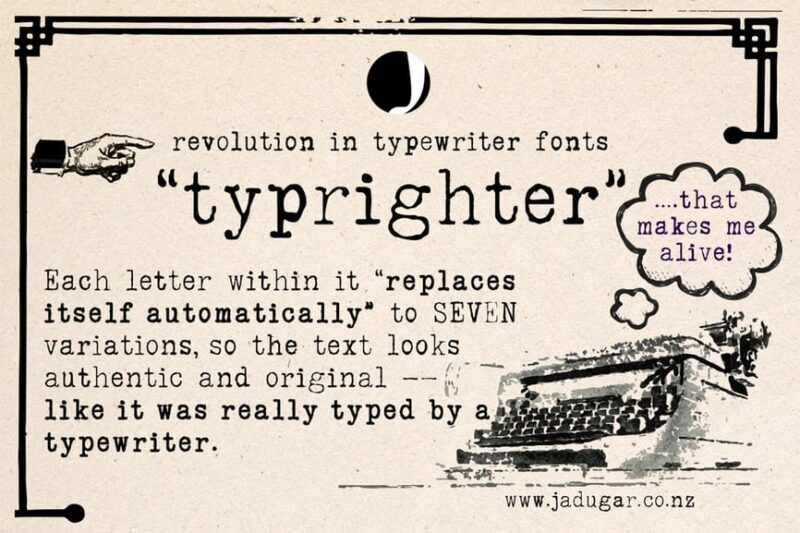
Typrighter is a serif typeface that emulates the look of old typewriter text. It offers a nostalgic and authentic feel, perfect for projects requiring a vintage or retro aesthetic.
Analog Typewriter
Analog Typewriter is a serif font that mimics the imperfections of typewritten documents. It’s ideal for creating realistic, vintage-inspired designs or adding a touch of authenticity to digital projects.
Not my type typewriter font
This serif typeface captures the essence of a realistic typewriter font. It’s perfect for designers looking to add a genuine, old-school typewritten feel to their work, with all the charm and imperfections of actual typewritten text.
Scripter – Classic Typewriter Font
Scripter is a classic typewriter-inspired serif font. It offers a timeless, traditional look that’s ideal for creating vintage-style designs or adding a touch of nostalgia to modern projects.
Chronicles Secret – Display Typewriter
Chronicles Secret is a decorative serif typewriter font with rounded edges. This unique display font combines vintage charm with a modern twist, making it perfect for eye-catching headlines or branding projects.
Autors Story – Typewriter Font
Autors Story is a serif typewriter font that captures the essence of a writer’s tale. It’s ideal for creating a nostalgic, literary atmosphere in design projects, particularly those related to storytelling or publishing.
Untold History – Typewriter Font
Untold History is a classic typewriter-inspired serif font. It evokes a sense of forgotten stories and hidden narratives, making it perfect for historical or vintage-themed designs.
Amateur Hand – Handwritten Typewriter Font
Amateur Hand is a clean, handwritten-style typewriter font. This serif typeface combines the charm of handwriting with the structure of typewritten text, ideal for designs that require a personal touch with a hint of nostalgia.
Keyclack Font
Keyclack is a retro-inspired serif typewriter font. It captures the essence of old-school typing, complete with the imagined sound of keys clacking, perfect for vintage-themed designs or projects requiring a touch of nostalgia.
Inktype
Inktype is a serif typewriter font that mimics the look of inked text. It offers a unique blend of typewriter precision and the organic quality of ink, ideal for designs that require a handcrafted, vintage feel.
Manuscript – Vintage Typewriter Font
Manuscript is a vintage-style serif typewriter font. It’s particularly well-suited for headlines and retro-inspired designs, offering a classic typewritten look that evokes nostalgia and authenticity.
Rattle Ink — Vintage Typewriter Font
Rattle Ink is a vintage-inspired serif typewriter font. It combines the charm of old typewriters with a slightly distressed look, perfect for creating authentic retro designs or adding a touch of nostalgia to modern projects.
Merchant Ledger
Merchant Ledger is a decorative serif font with a typewriter-inspired design. It evokes the feel of old business ledgers and accounting books, making it ideal for vintage-themed designs or projects related to finance and commerce.
So next time you’re choosing fonts for a serious project, consider the lessons learned from newspaper design. Sometimes the most powerful typography is the kind that gets out of the way and lets the content shine – just like a great newspaper font should.
The beauty of newspaper typography lies not in flashy effects or trendy styling, but in its quiet efficiency and enduring reliability. In a world of constant change, these fonts remind us that some design principles are truly timeless.